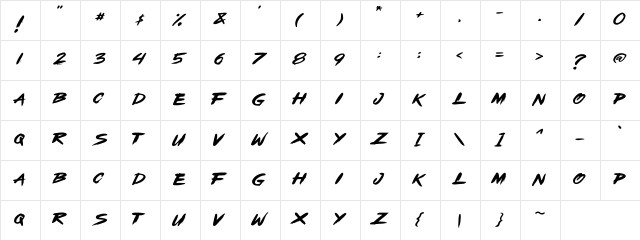
OpenBrush Regular
Design Context for OpenBrush Typeface
OpenBrush flows with the natural rhythm of handwritten lettering, making it ideal for designs that call for warmth and personal expression.
Font Pairing: Combine OpenBrush with a simple geometric sans for maximum contrast — the tension between flowing curves and clean structure is a classic typographic pairing.
Pro Tip: Pair OpenBrush with a clean sans-serif for supporting text. The contrast between fluid script and geometric structure creates an elegant typographic hierarchy.